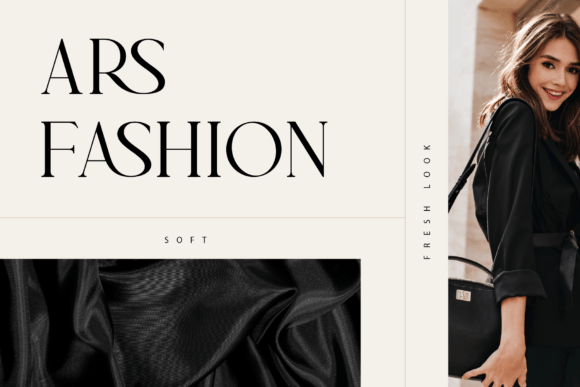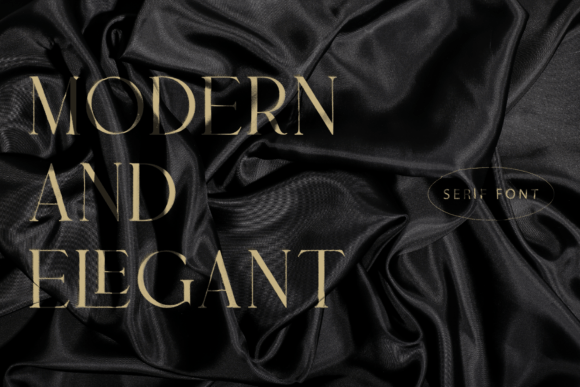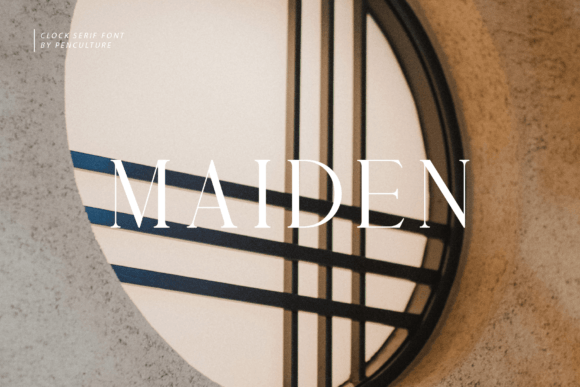
Introduction to Clocks Font
Clocks is a modern and elegant serif font with lovely ligatures.
This font has an authentic shape which is very suitable for various design projects such as branding, logo, fashion design, and many others .
Key Features of Clocks Font